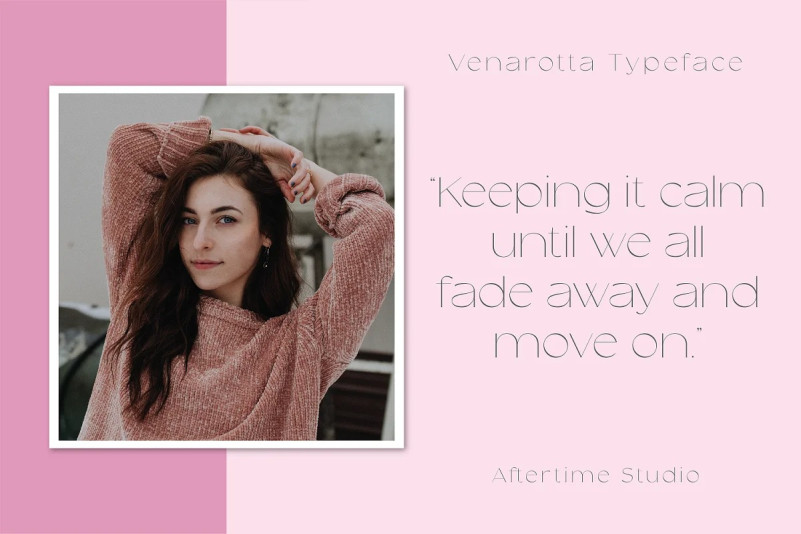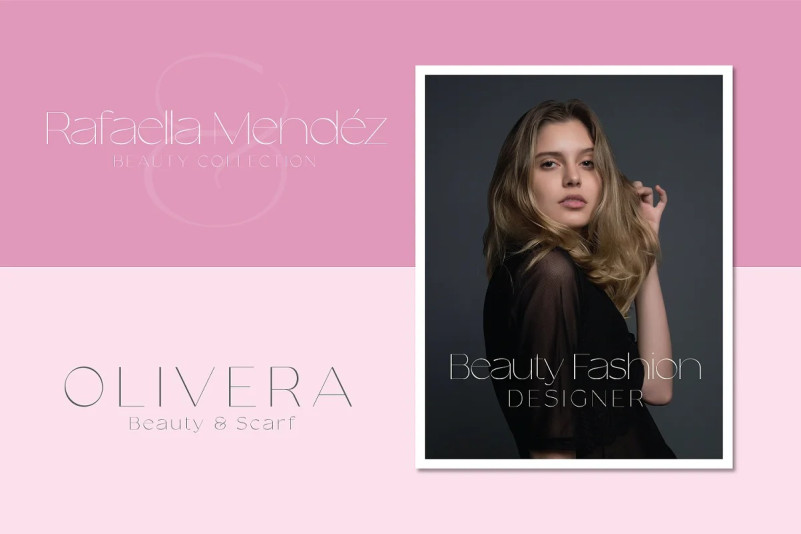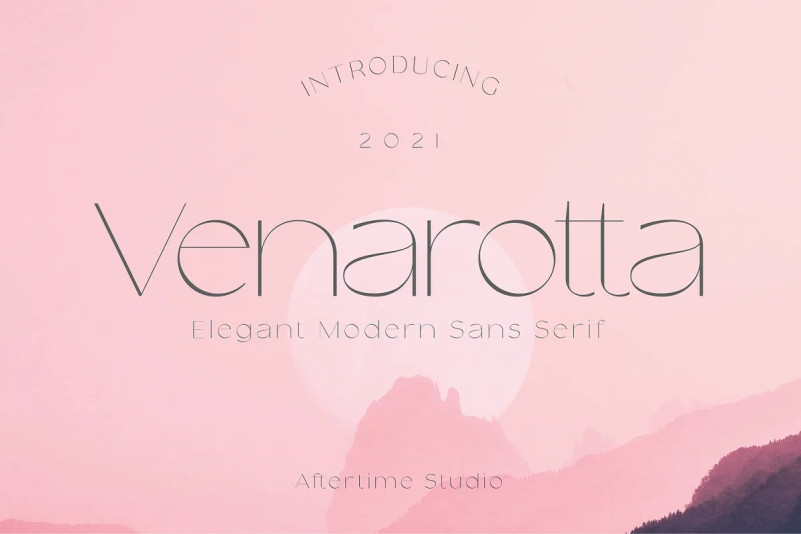
Venarotta Font
Venarotta Font is a minimal and neat sans serif font. It can easily be matched to an incredibly large set of projects, so add it to your creative ideas and notice how it makes them stand out!